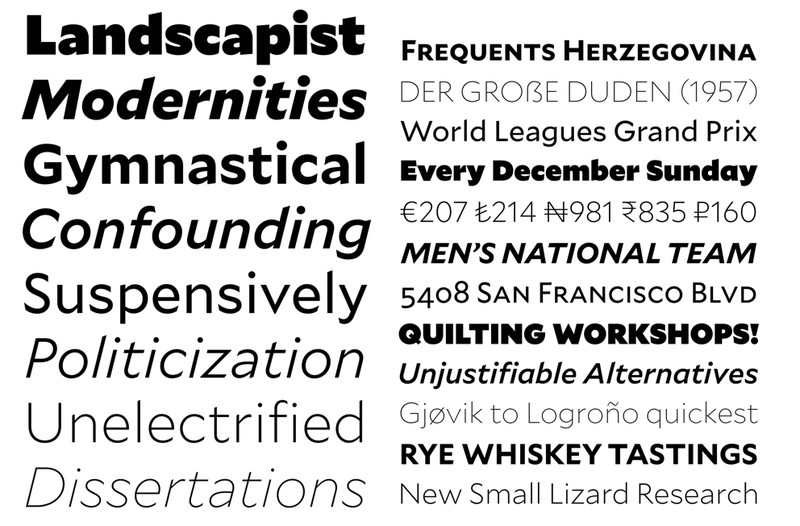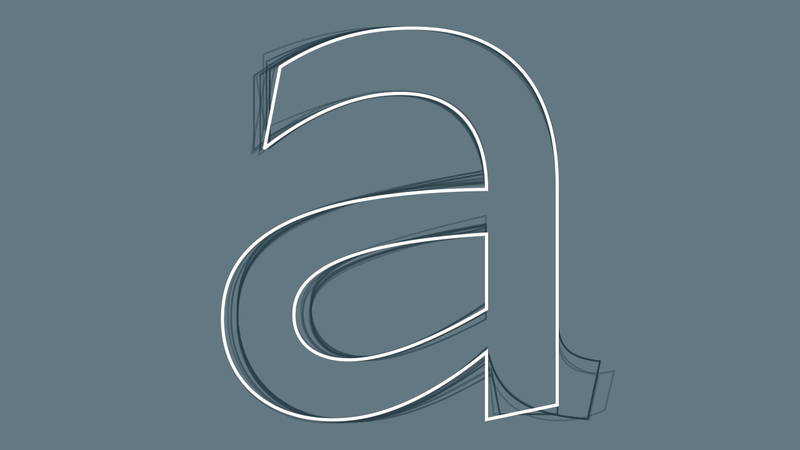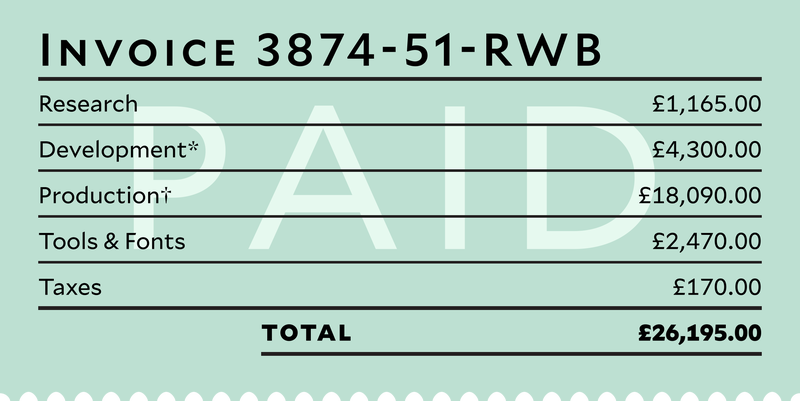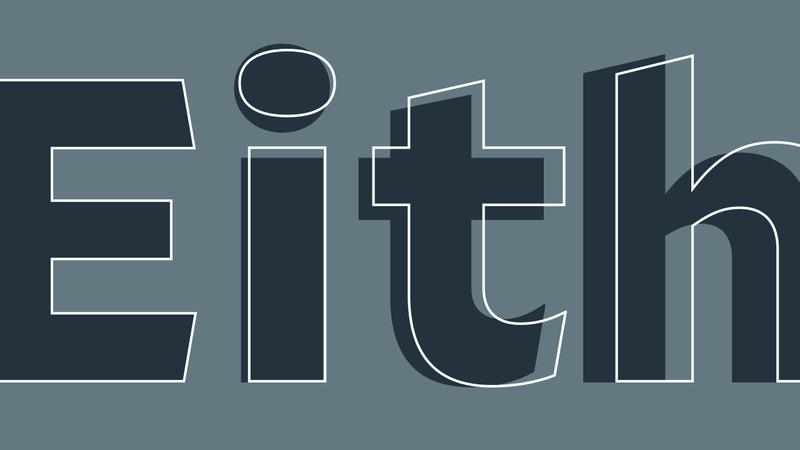
There’s been plenty of talk lately about why certain typefaces are better (or truly awful) for our increasingly screen-based reading. A new typeface by celebrated typographer Tobias Frere-Jones is designed to elegantly bridge what is perceived to be a growing gap between print and digital worlds.
After a very public split from longtime business partner Jonathan Hoefler last year, Frere-Jones has launched a new foundry—Frere-Jones Type. His new typeface, Mallory, is the first he’s developed from scratch in two years.
Mallory actually began innocently enough, with a thought experiment: What if there were a typeface that drew equally from both English and American type histories? Frere-Jones himself is a kind of hybrid, as he’s the child of both English and American parents (Mallory is actually a family name on his father’s side).
Here’s Mallory in all its Transatlantic glory
For inspiration, Frere-Jones looked at the work of some of the most famous type designers in history. The English reference points are Edward Johnston, best known for the hyperlegible typeface developed for the London Underground system, and Eric Gill, known for the equally utilitarian Gill Sans. The American reference point is W.A. Dwiggins, a typographer who was credited with coining the term “graphic designer” back in the 1920s, and therefore made slightly more decorative (but still useful!) fonts like Caledonia. Frere-Jones notes the British influences are as “dignified and austere,” while the American side is more “friendly and approachable.”
Mallory—nicknamed the “Transatlantic Sans”—actually oscillates between the two influences as well. You can see how some letterforms have a very rigid, angular geometry, and others are curvaceous and flowing. This makes it a typeface that plays exceptionally well with others, easily moving into the leading role or stepping aside to be the supporting actor.
Sketching out the perfect ‘a’
In fact, this is how Frere-Jones sculpted Mallory, using the font-building software Font Lab and RoboFont as well as a suite of custom-built tools. He’d begin with a very thin, delicate version of each letter, and a thick, boisterous version, then see how far in either direction each letter could go. But as far as the weight that eventually won out, it all came down to legibility at tiny sizes—a key component to Mallory.
The biggest challenge facing new typefaces is that they’re often being used in smaller and smaller applications; Frere-Jones developed one named Retina for the Wall Street Journal to display stock information in 5-point letters. These teeny characters have become more difficult to execute with the advent of tiny screens, where letterforms are even less forgiving. That’s why Apple developed an entirely new typeface for its Watch, San Francisco, which has become standard for its other operating systems as well.
Mallory Standard is shown here in solid, MicroPlus is the outlined version
But for Mallory, Frere-Jones didn’t want to make one family for print and a special one for the web, as many contemporary type designers do. “I didn’t want to make a font that only had relevance in one environment,” he says. “As print and web become less divided, the crossover between them becomes more frequent. It seemed like having one side of the divide was like building a car that can only turn left.” And that’s where Mallory’s MicroPlus comes in, the super-tiny double purpose version that’s the same for both mediums.
There’s been a lot of talk about simplicity in type over the past few years. For example, Google claims that changing its logo from a serif to a sans serif typeface helps its digital applications load faster. But something you can see easily in Mallory is that sometimes a letter’s shape becomes more legible if it’s slightly more complicated. This is the key to smaller letterforms—the ‘l’ and the ‘i’ must look very different from each other to set themselves apart from one another.
Note the elongated ‘l’ and the very discernible round dot over the ‘i’; the way the ‘e’ and ‘a’ could never be confused
And that’s another thing that Frere-Jones wants to emphasize. Type has evolved for hundreds of years, but one truth has remained for all those centuries: Legibility is everything. It doesn’t matter if you’re reading a poster or an iPad.
“I’m glad people are taking more time to think about what’s more legible. I’m hoping this will help them understand that Helvetica’s not this invincible thing because it’s actually very terrible for text,” he says (to which I cheered). “But this idea that typefaces react to what the human eye needs and how we read—that never changes.”